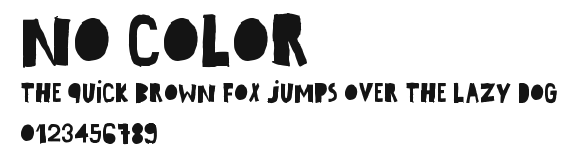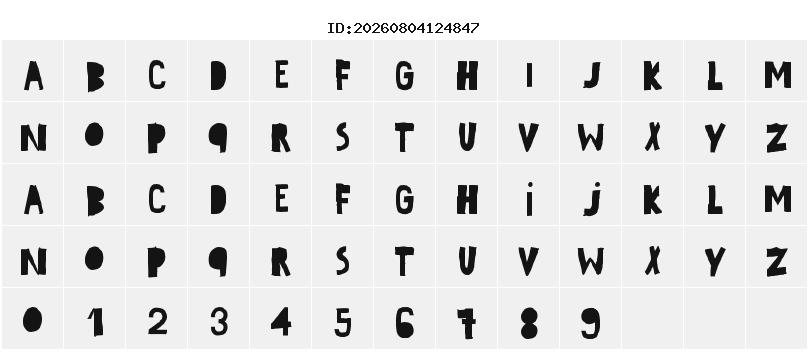
No Color Preview
• Font Name: No Color
• Full Font Name: No Color
• Designer: paintblack
• Manufacturer: paintblack
About No Color.ttf
No Color.ttf is a modern, elegant sans-serif font designed for ultimate readability and visual harmony. Perfect for branding, headlines, web design, and print materials.